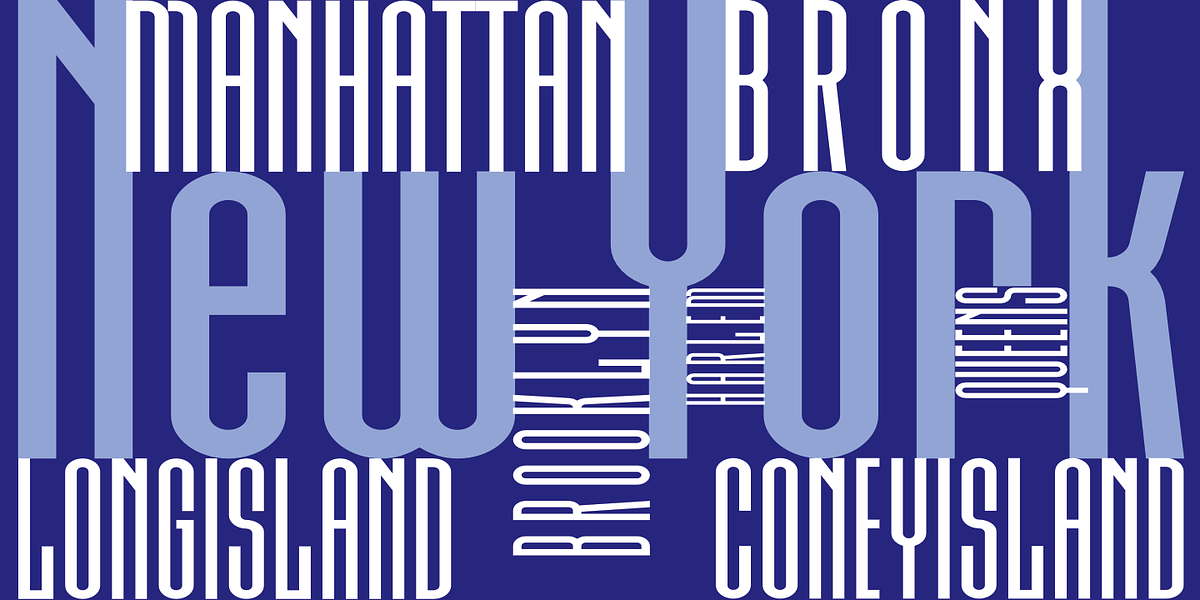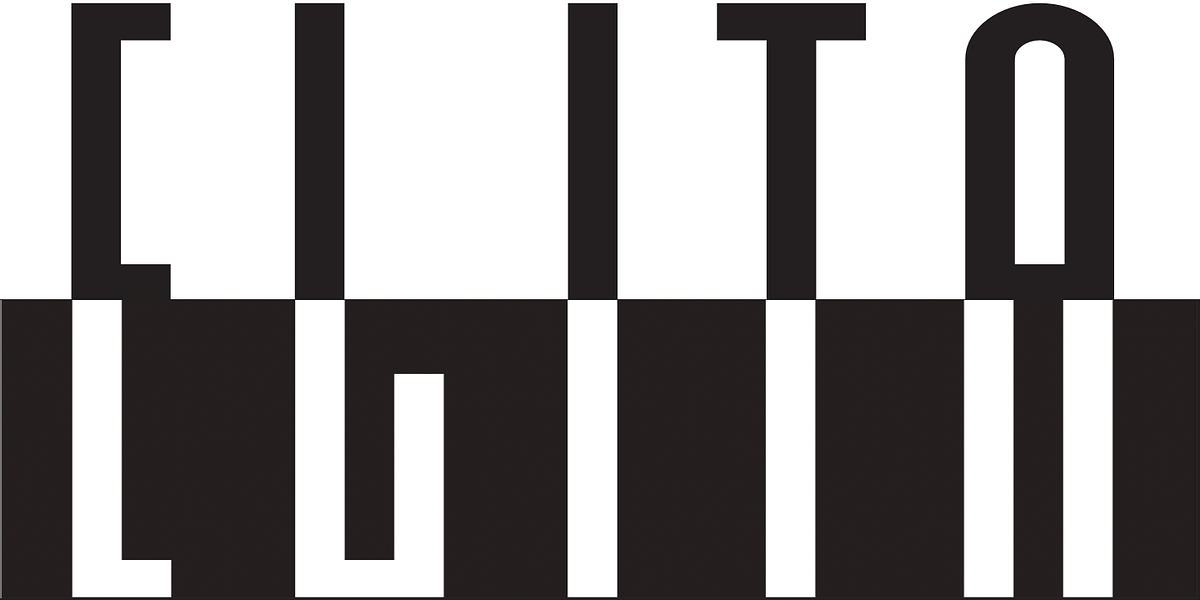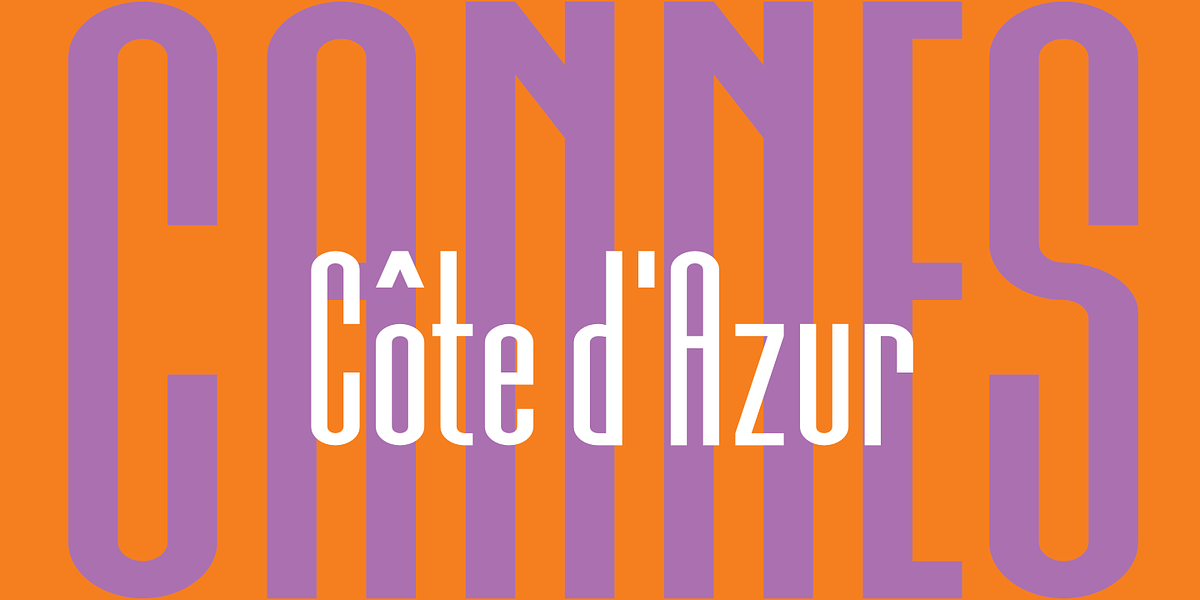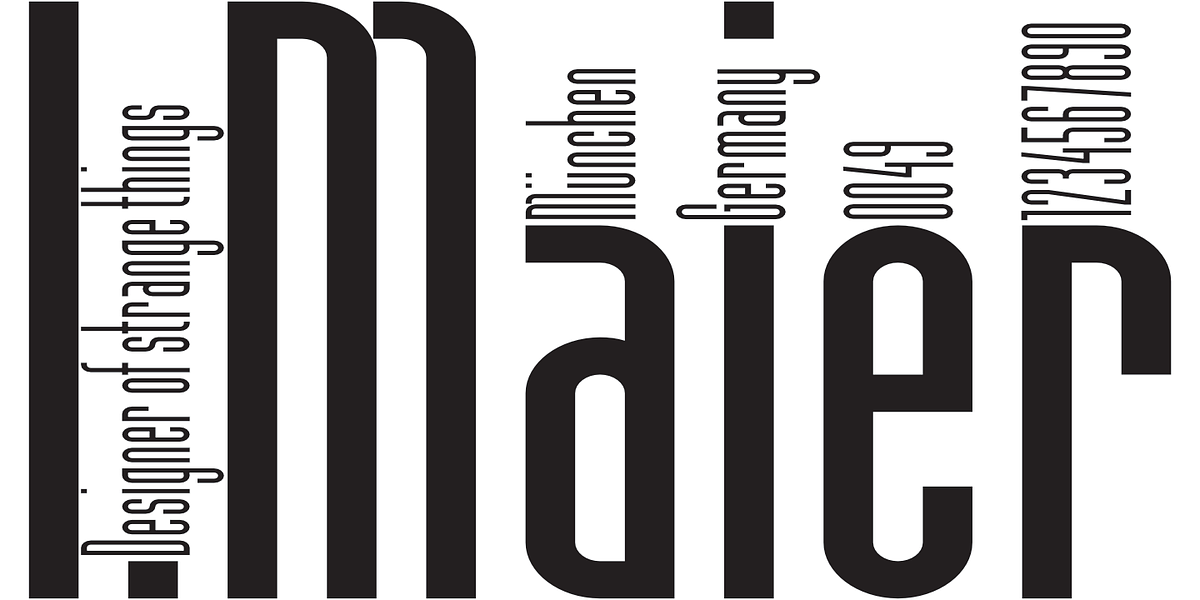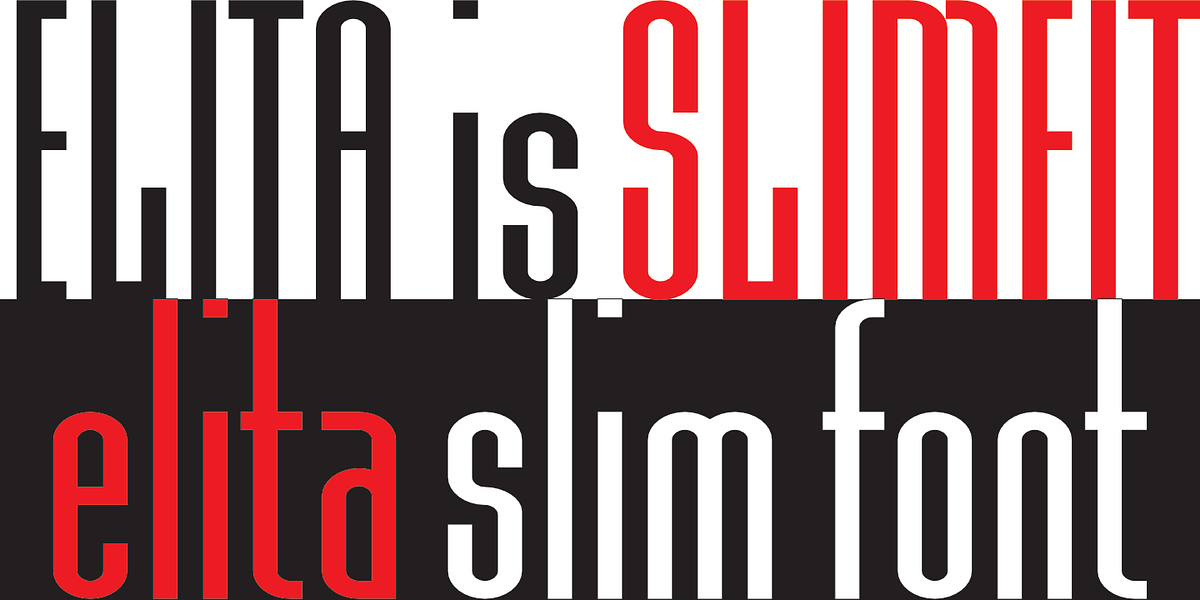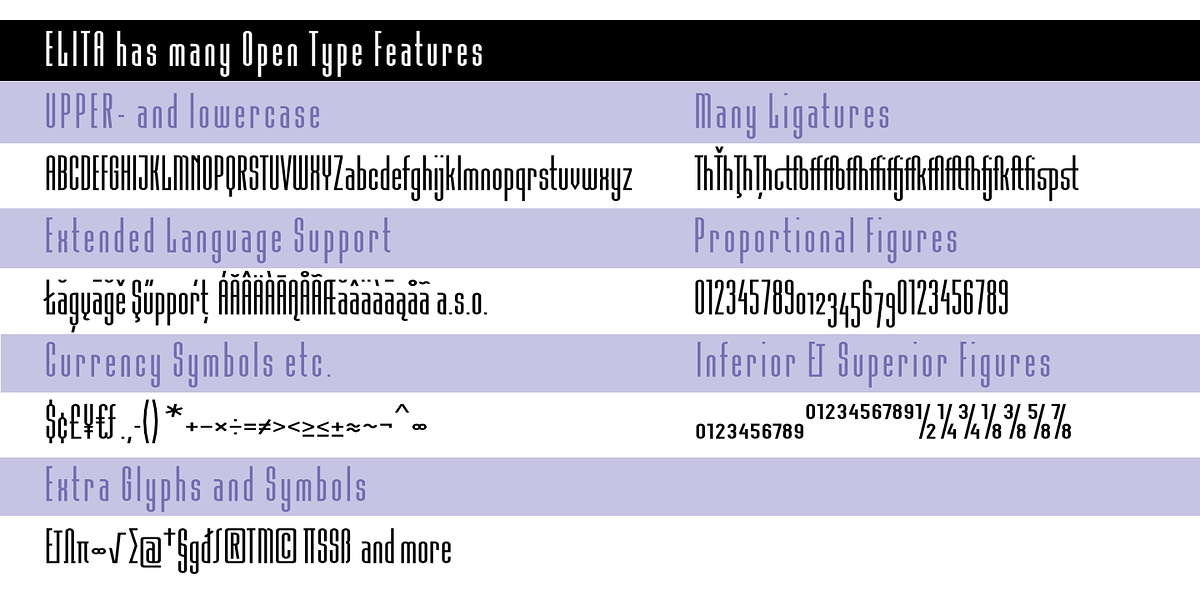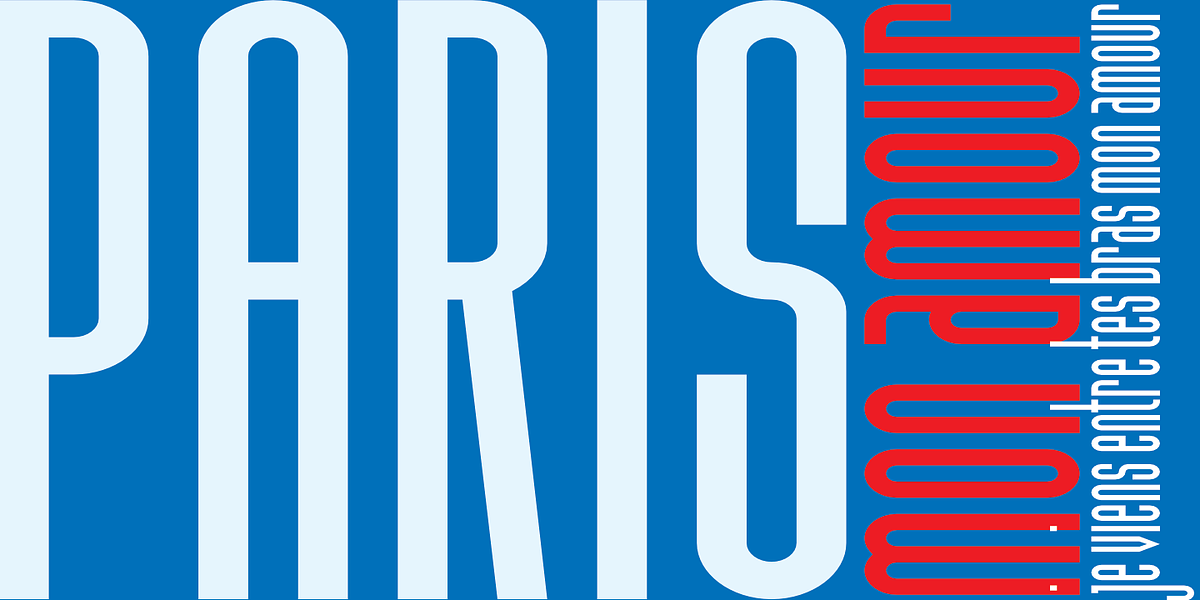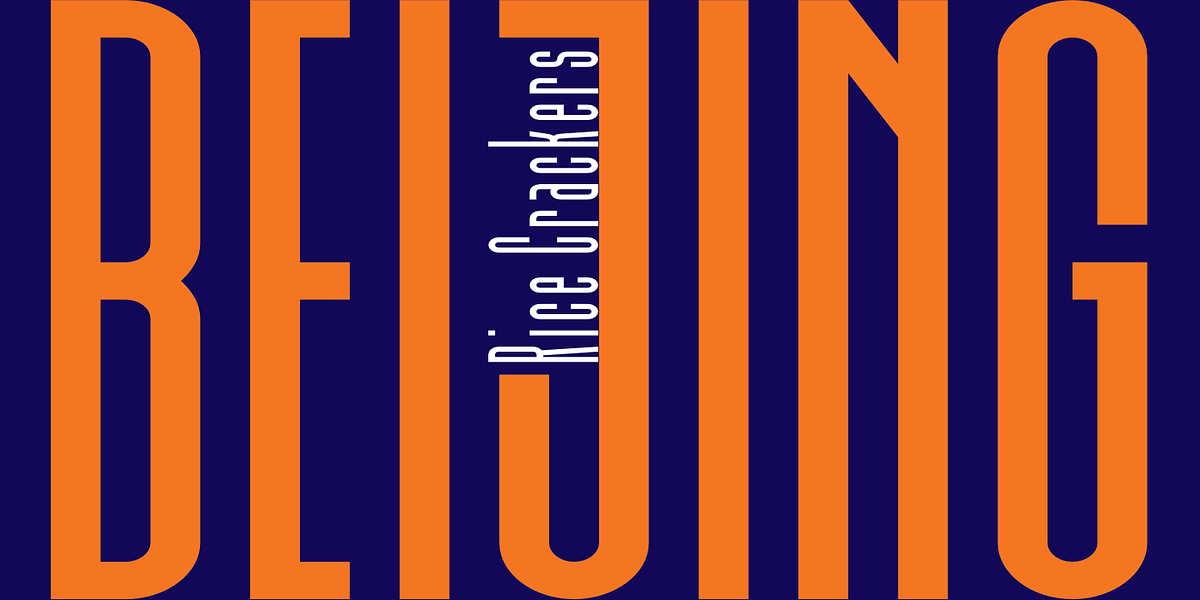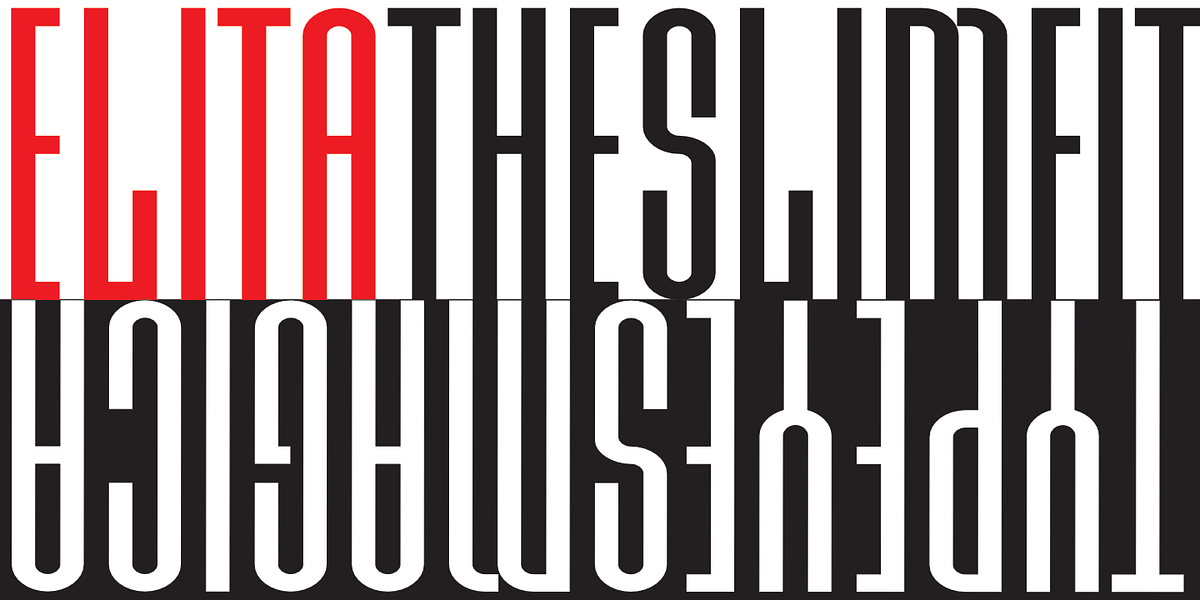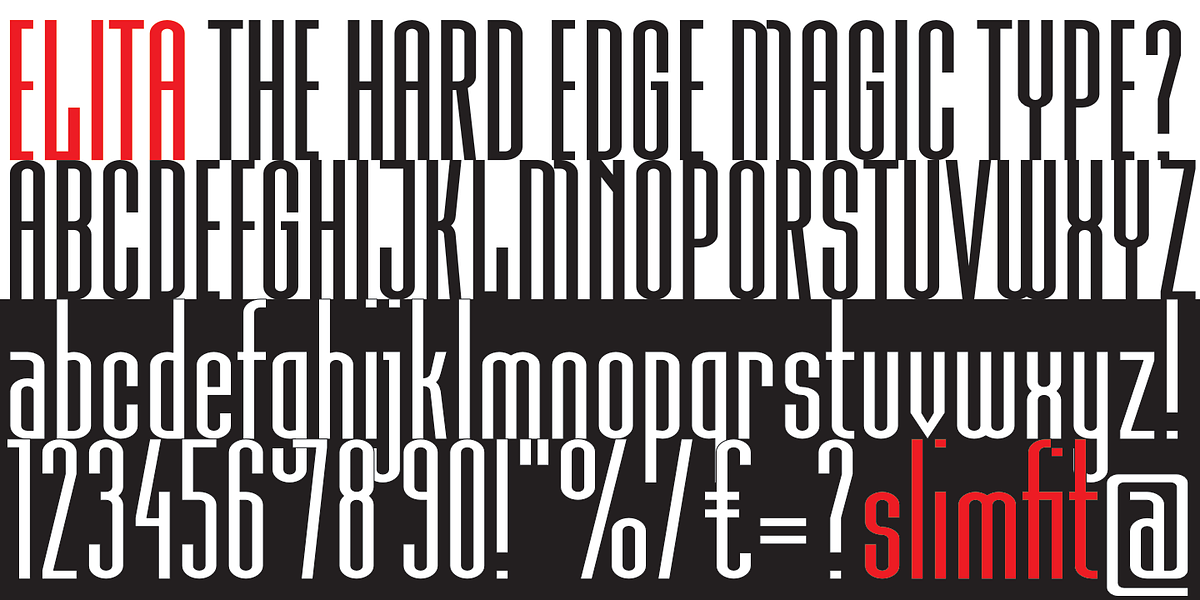
Elita
Elita is a sans serif typeface characterized by its extreme narrowness. Designed on a strict 3x16 grid, it eschews any optical adjustments for pure geometric form. This results in a font with very high black and white contrast. While not intended for long blocks of text, Elita excels as a display font for headlines and branding where its unique and minimalist aesthetic can make a strong impact.